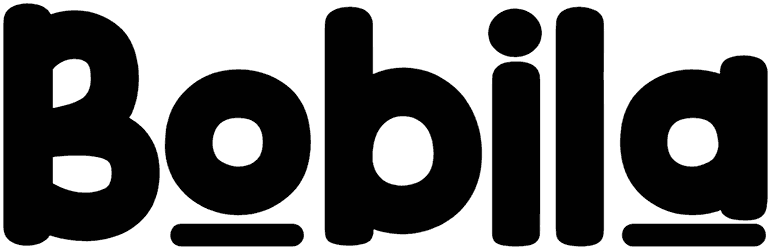
Bobila Font
In addition to being fancy, the Bobila font has stylish lines that can be used in many food products, including the packaging design for donuts, snacks, and biscuits.
The exciting thing about this comic font is that some characters have an underline that you can use in different products to show focus and make the audience pay attention to these letters. Finally, we suggest you use this cartoon font in future projects and improve your work area.
Endri Sulistyawan
Rashatype